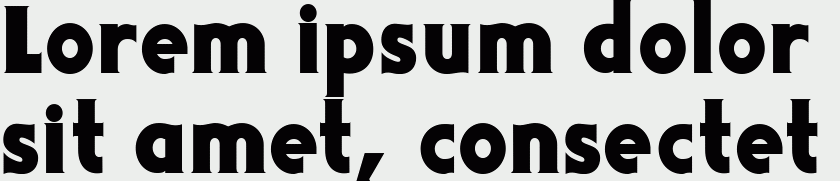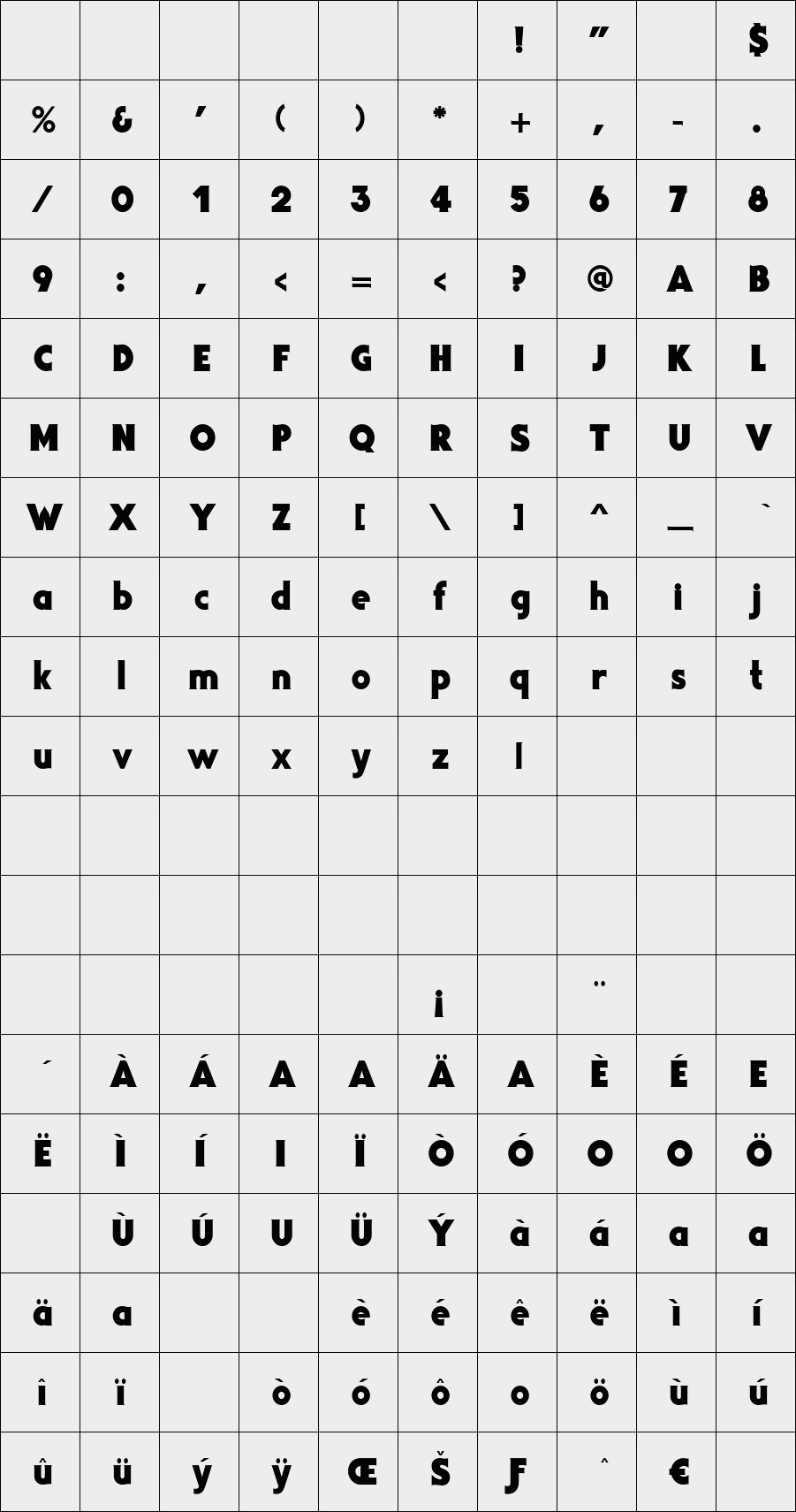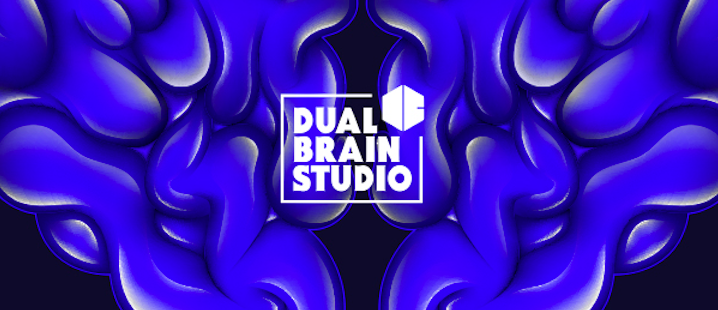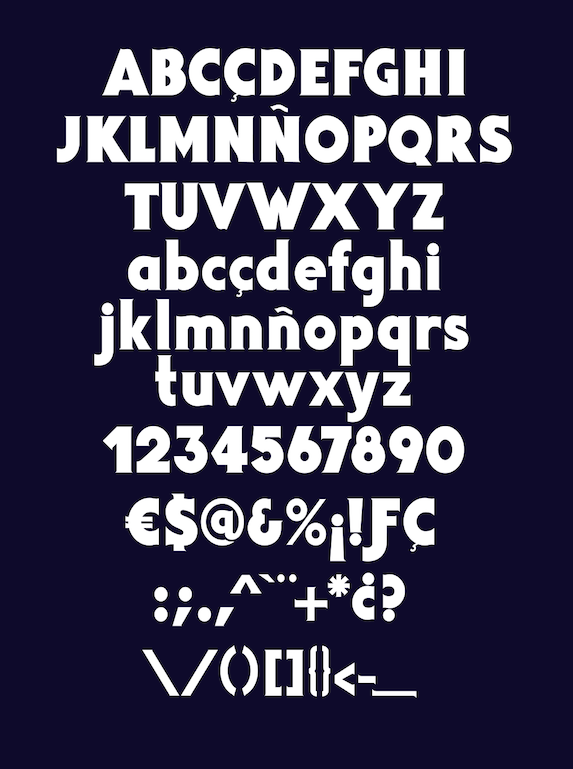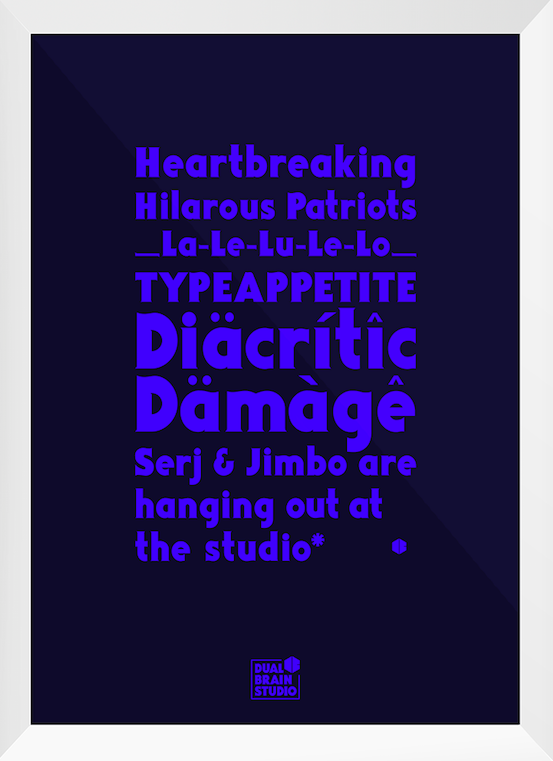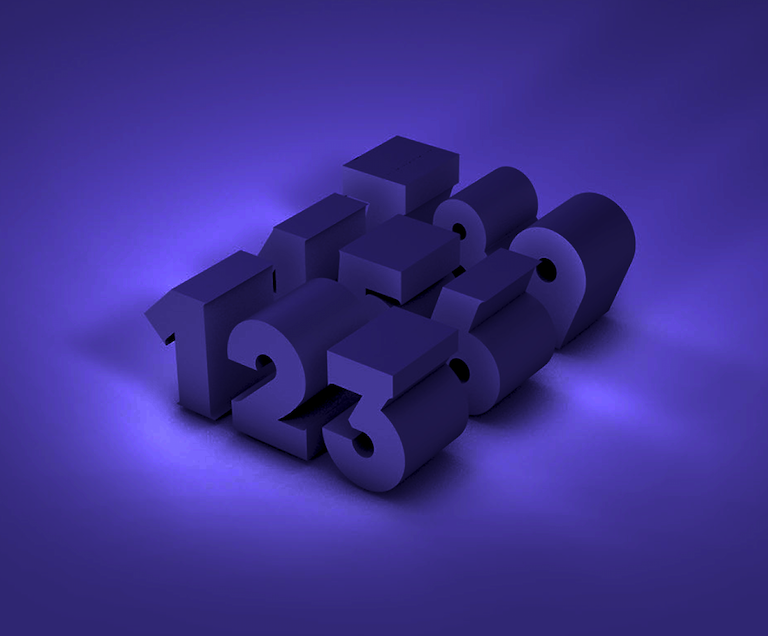
DualBrain
DualBrain is a Serif Typeface created to rebrand the Graphic design Studio owned by Jimbo Bernaus and Sergi Amigó. The intention was to create a font similar to SerifGothic Black, a font designed by Herb Lubalin and Antonio DiSpigna.
Something Bold to create impact in our logo and to be used in big text such as headlines.